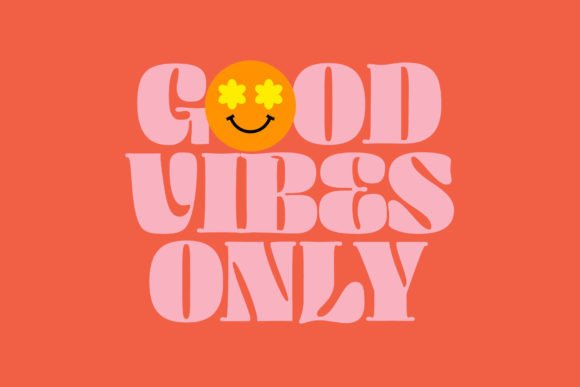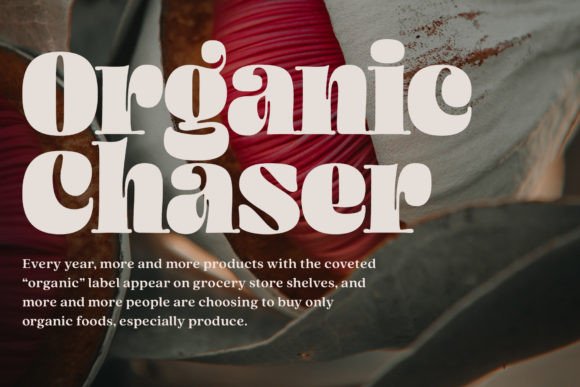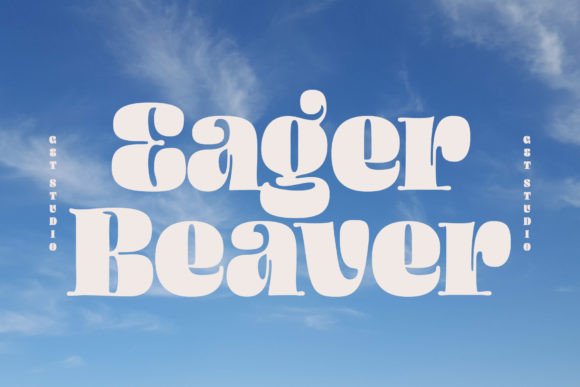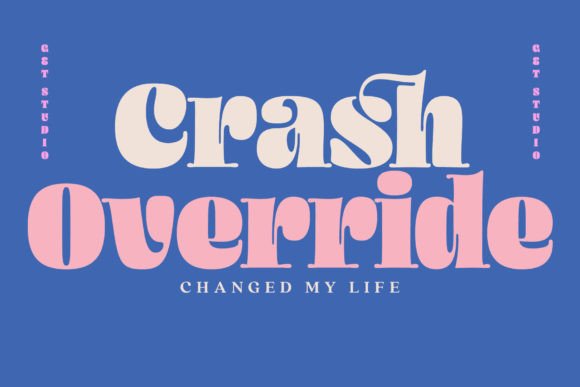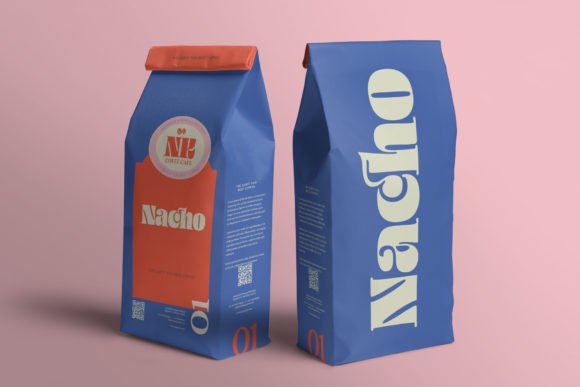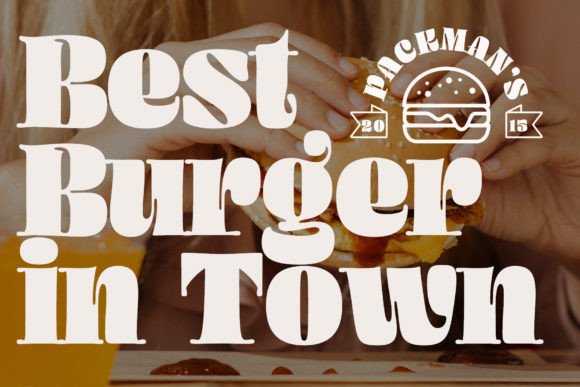
Introduction to Mad Rascal Font Font
Fonts play a crucial role in design, and the Mad Rascal Font font is a typeface that brings both character and versatility to any project. Whether you’re working on a branding project, a website, or a print design, the Mad Rascal Font font offers a unique style that can elevate your work.
Mad Rascal is an extra bold display font with a large and soft inktrap.
Itβs ready to make a lasting impression on your merchandise, quote designs, header text, logos and branding, advertisements, and much more .
The Mad Rascal Font font is more than just a typeface β it’s a design tool that helps you communicate your message with style and clarity. Its unique character set and versatile design make it suitable for a wide range of applications, from elegant invitations to bold headlines.
With its carefully crafted letterforms and balanced proportions, the Mad Rascal Font font ensures readability and visual appeal across all mediums.
The Mad Rascal Font font stands out with its unique design, exceptional readability, and versatility across various design applications.